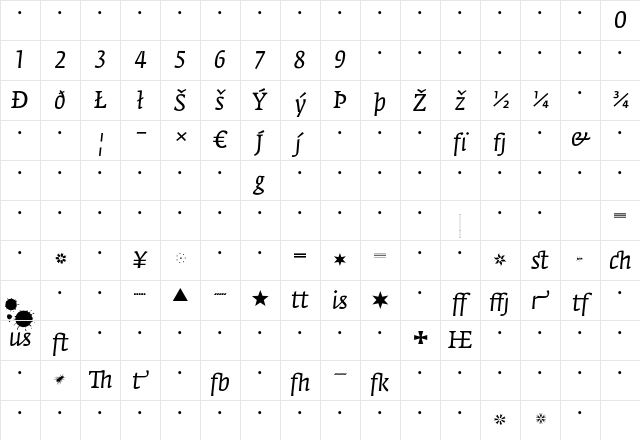
Fedra Serif A Book Italic Free Font
Fedra Serif A Book Italic
Style: Book Italic
Foundry: Peter Bilak (www.typotheque.com),
Design Context for Fedra Serif A
Fedra Serif A carries the refined structure of traditional serif typography, with bracketed terminals and considered proportions that communicate credibility and craft. The slanted form adds forward momentum and visual energy.
Who designed the Fedra Serif A Book Italic font?